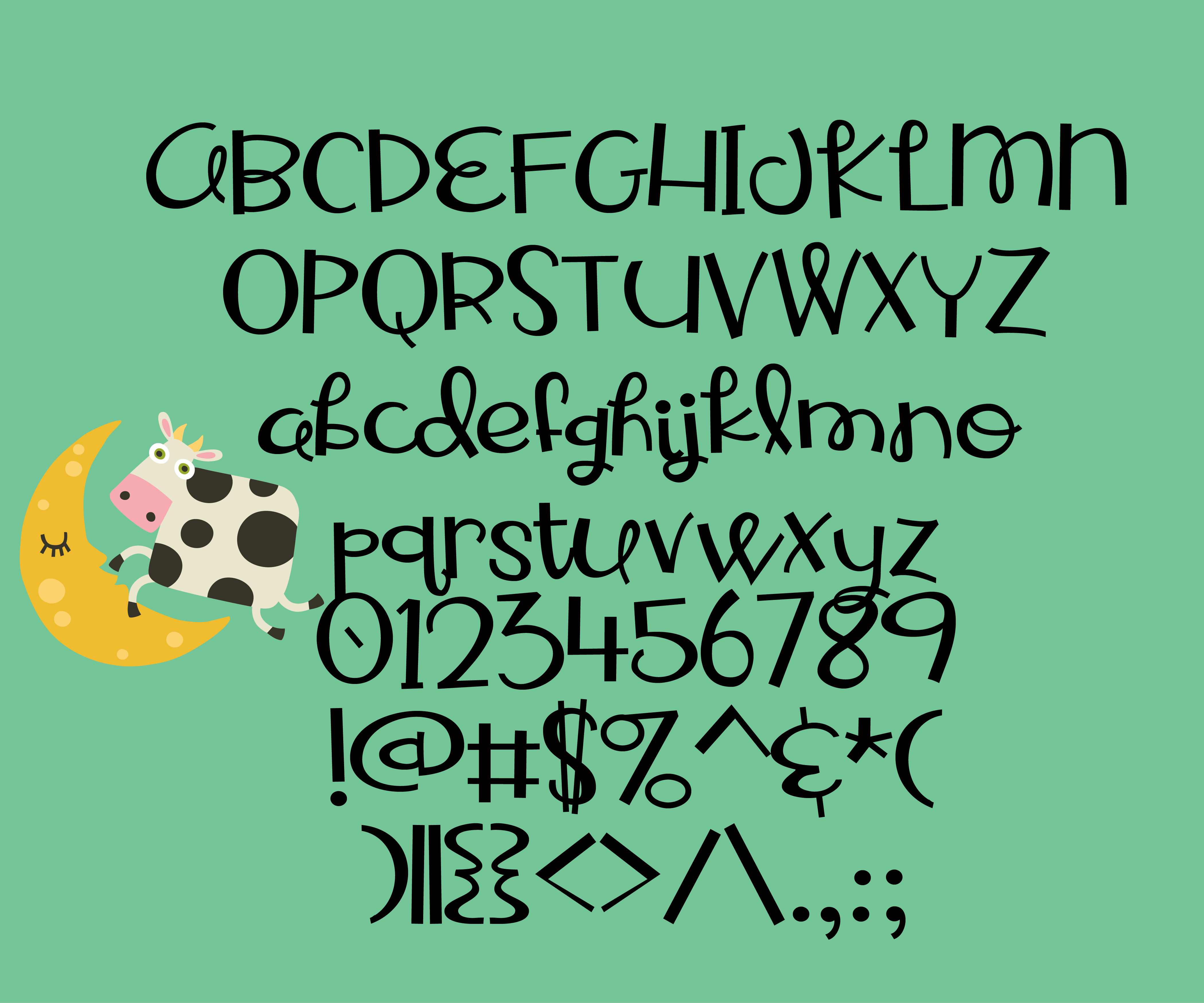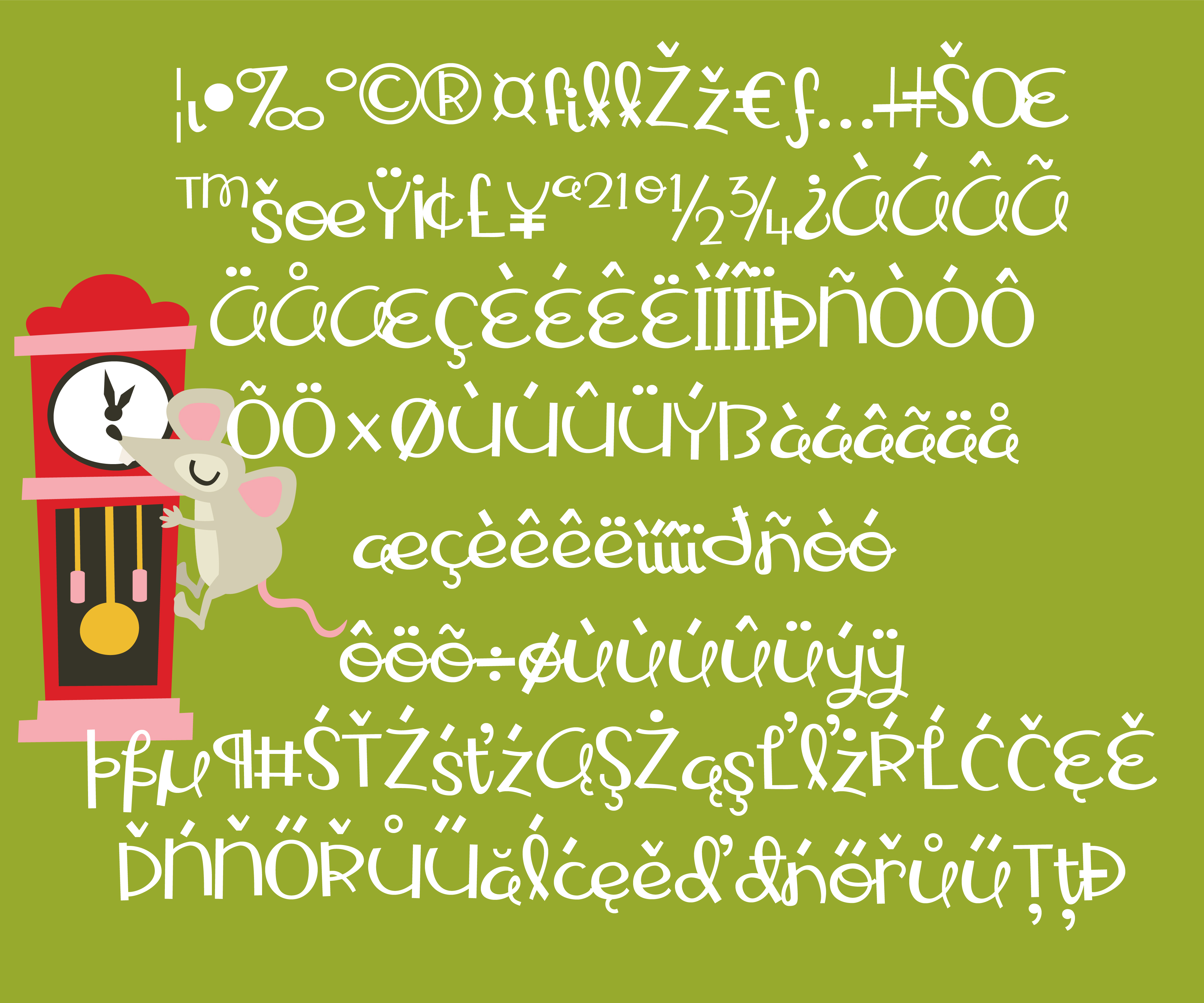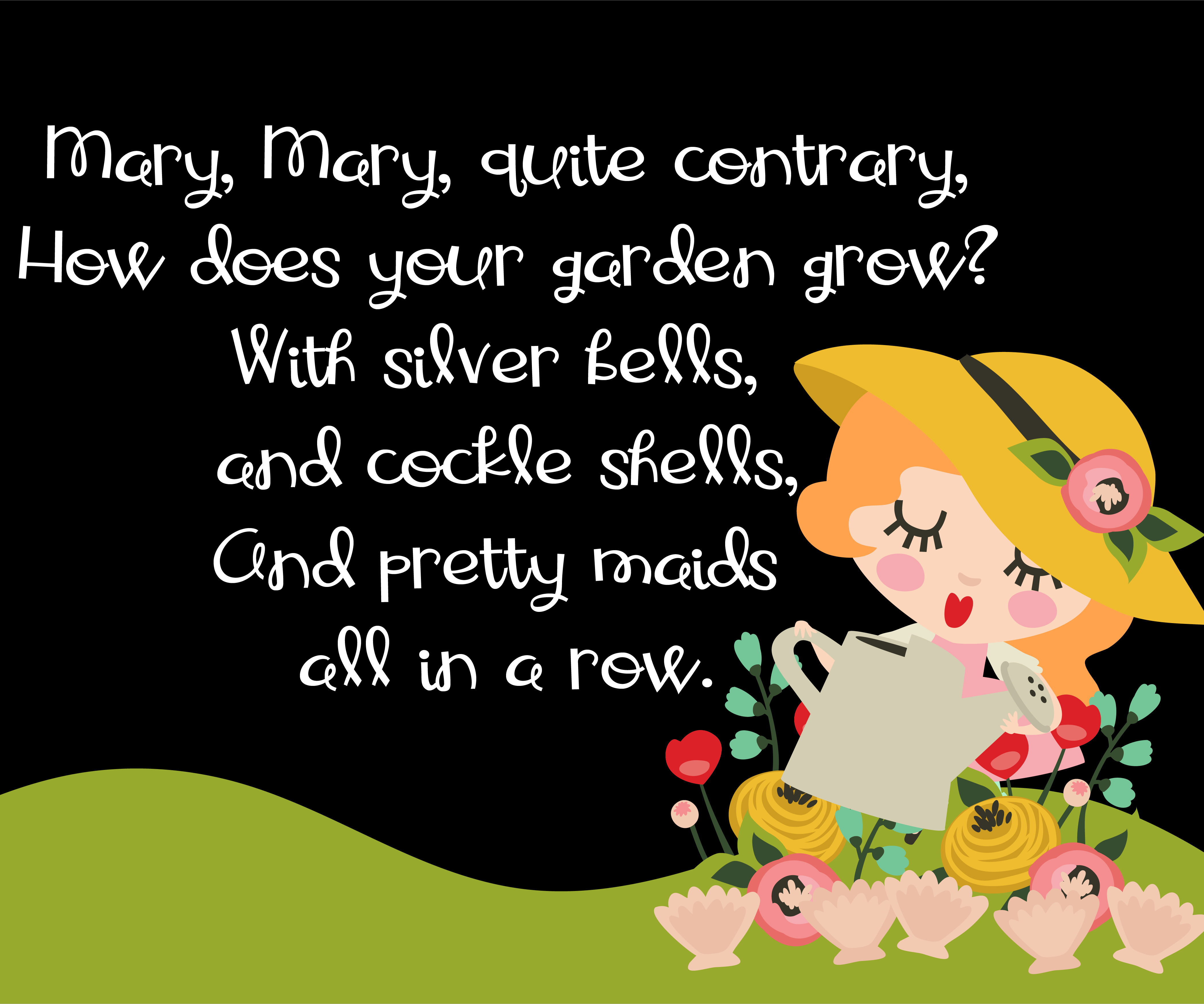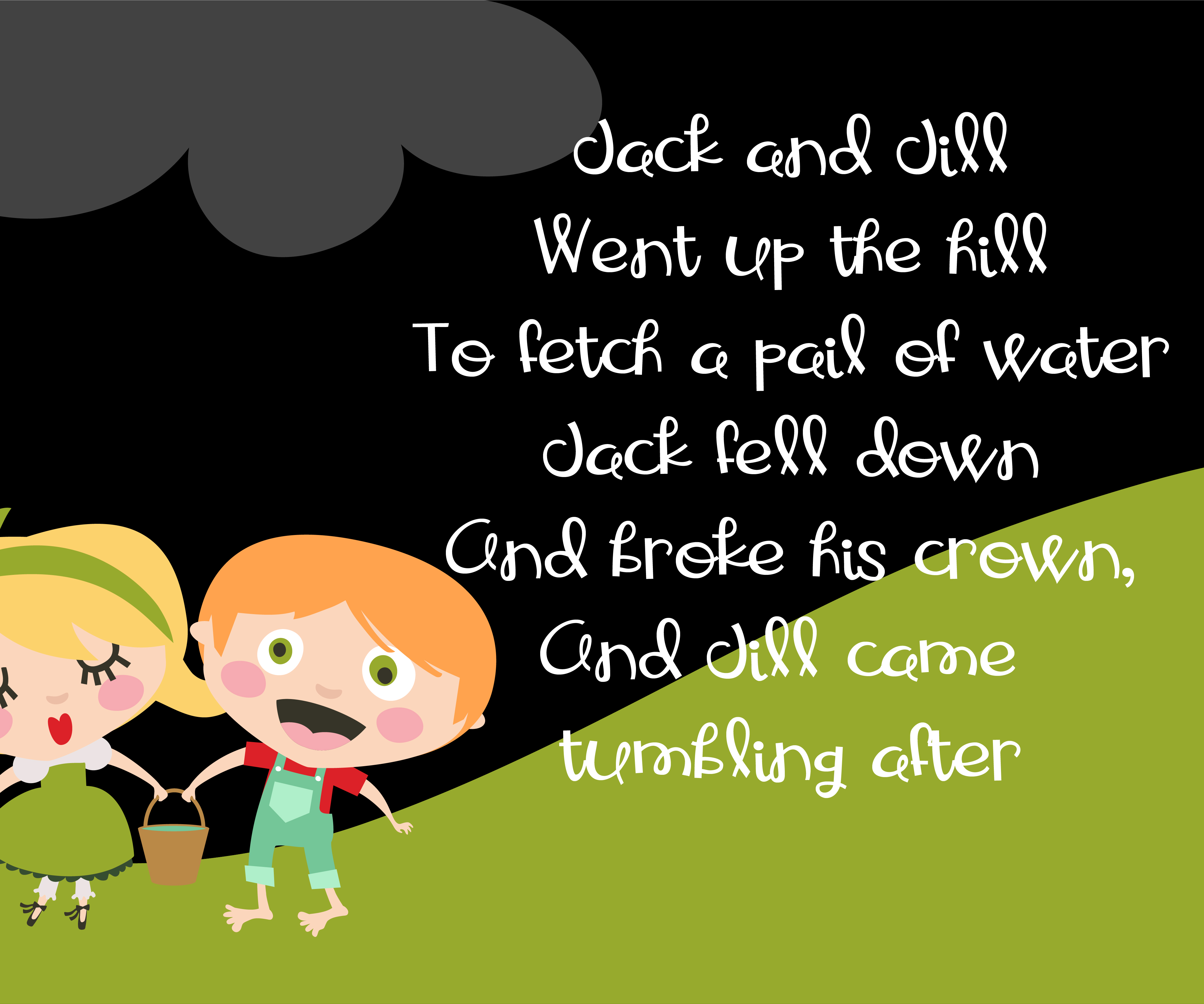
Introduction to Mother May I Font Font
Fonts play a crucial role in design, and the Mother May I Font font is a typeface that brings both character and versatility to any project. Whether you’re working on a branding project, a website, or a print design, the Mother May I Font font offers a unique style that can elevate your work.
Mother May I is a fun and youthful script font that we like to call a quasi-script.
It has script like tendencies but it is combined with a printed youthful look as well for a more relaxed feel .
Key Features of Mother May I Font Font
Why Choose Mother May I Font Font?
The Mother May I Font font is more than just a typeface – it’s a design tool that helps you communicate your message with style and clarity. Its unique character set and versatile design make it suitable for a wide range of applications, from elegant invitations to bold headlines.
With its carefully crafted letterforms and balanced proportions, the Mother May I Font font ensures readability and visual appeal across all mediums.
What makes Mother May I Font font special?
The Mother May I Font font stands out with its unique design, exceptional readability, and versatility across various design applications.